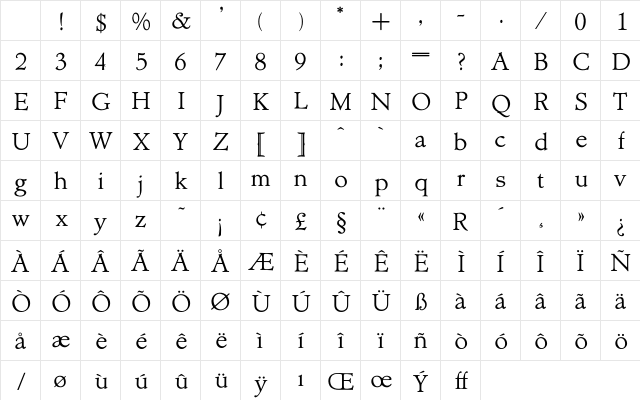
OPTIAdministerLightAd is a composed and adaptable typeface that performs quietly and consistently across a wide range of design contexts. Its slender proportions lend an understated elegance to any composition.